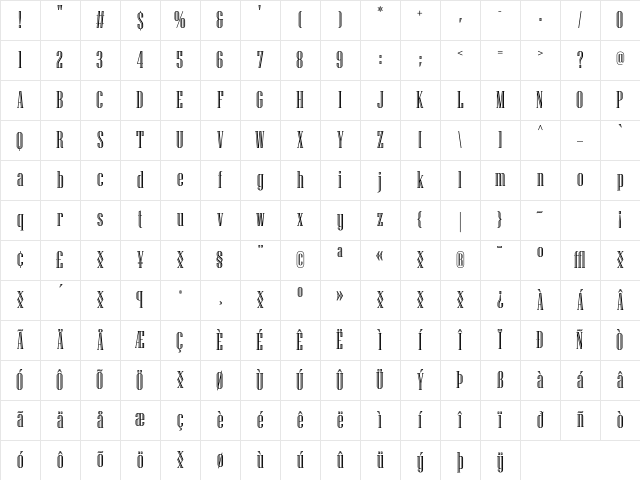
Niagara Engraved
Style: Engraved
Design Context for Niagara
Niagara is built around its visual character rather than neutral utility - its distinctive forms are designed to make an impression at display sizes.
Font Pairing: Pair with a clean neutral sans-serif for body copy to let Niagara's character lead without overwhelming the composition.
Pro Tip: Use Niagara exclusively at display sizes - it was designed to be seen, not read at length. Let a neutral companion handle body copy.